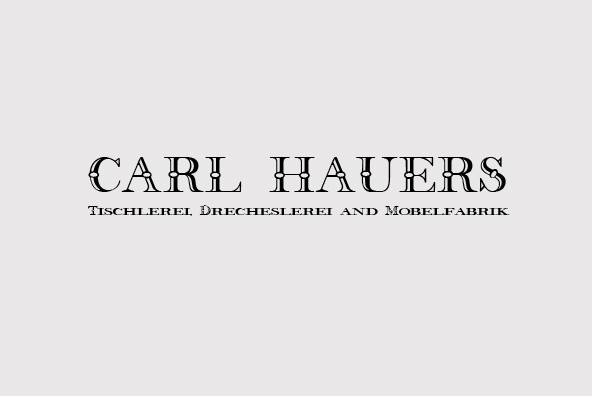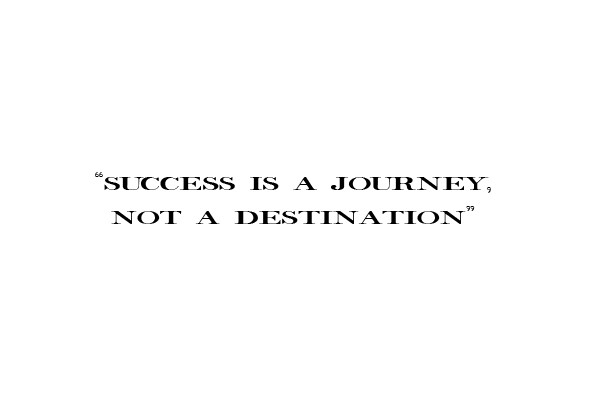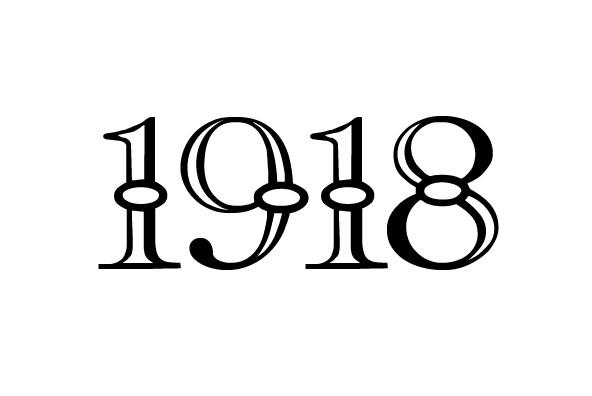
Fry's Alphabet
Foundry: Intellecta Design
A classic serif design remastered by Intellecta Design. Designed around an antique theme, Fry's Alphabet works great in display purposes. Contains a limited amount of letter designs, works best when used for headers.